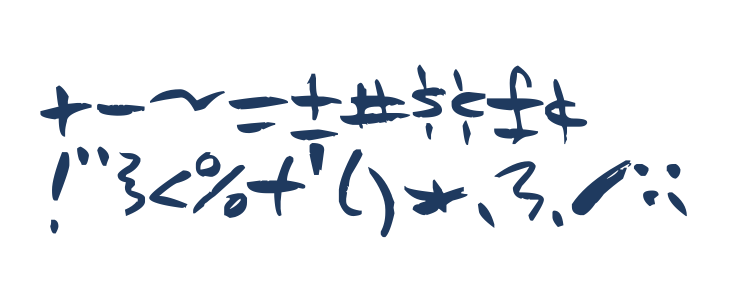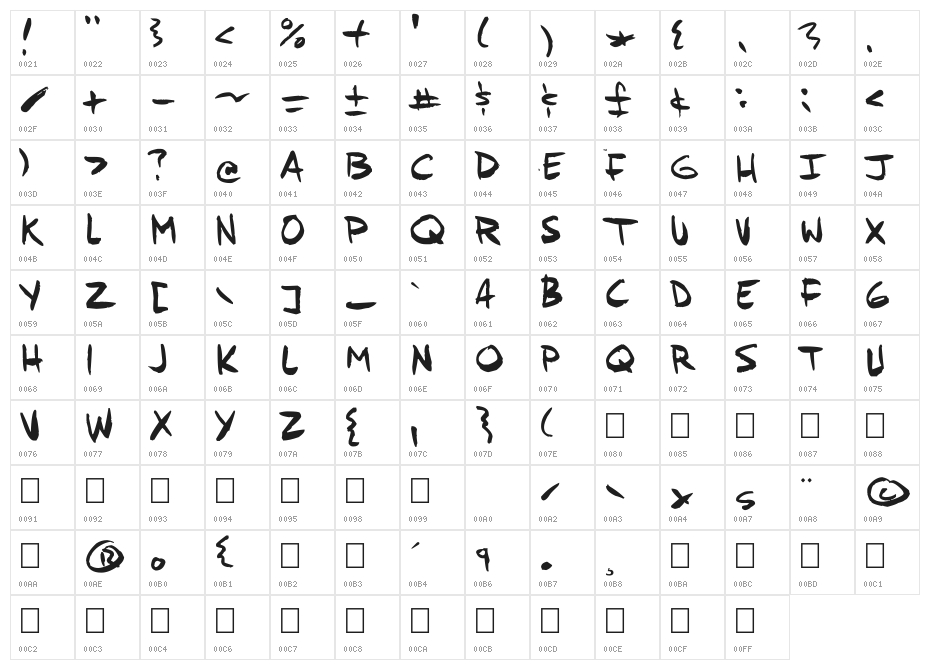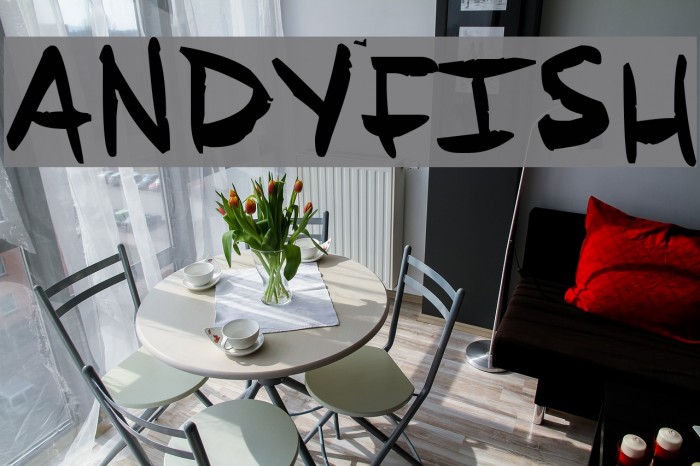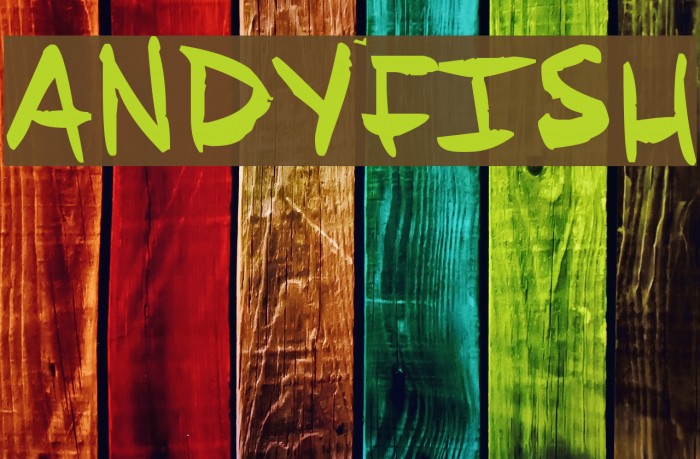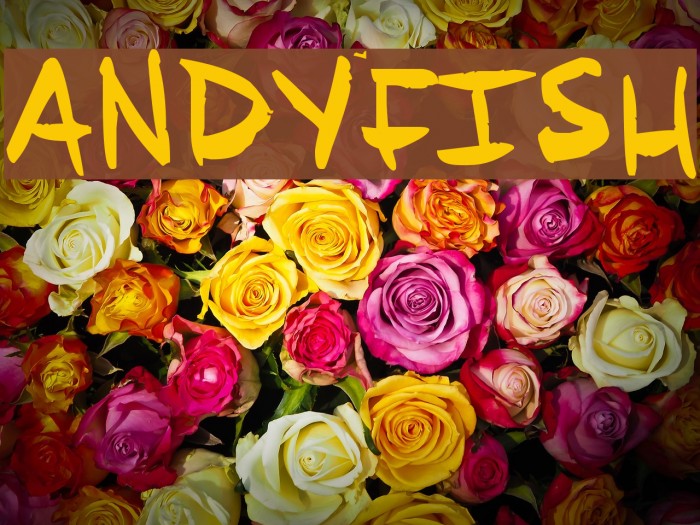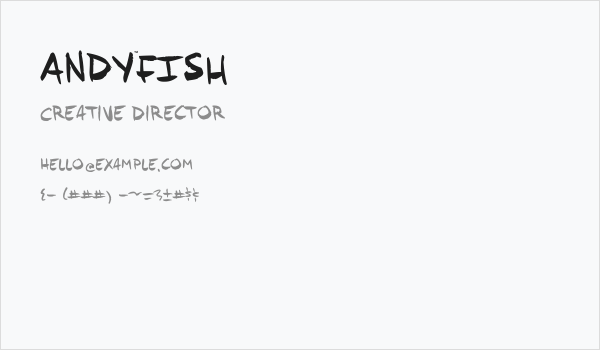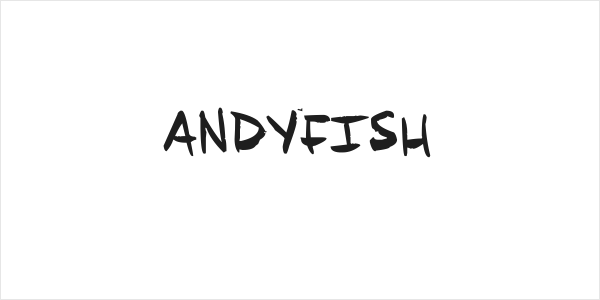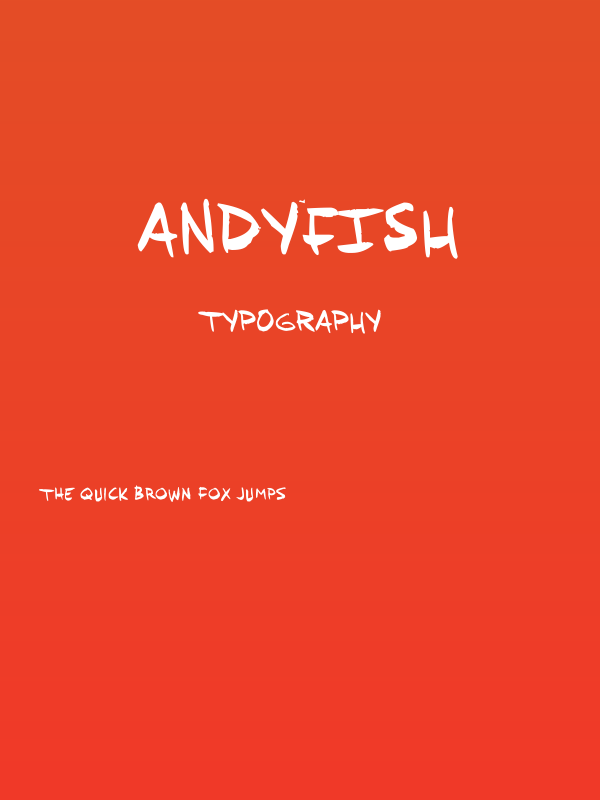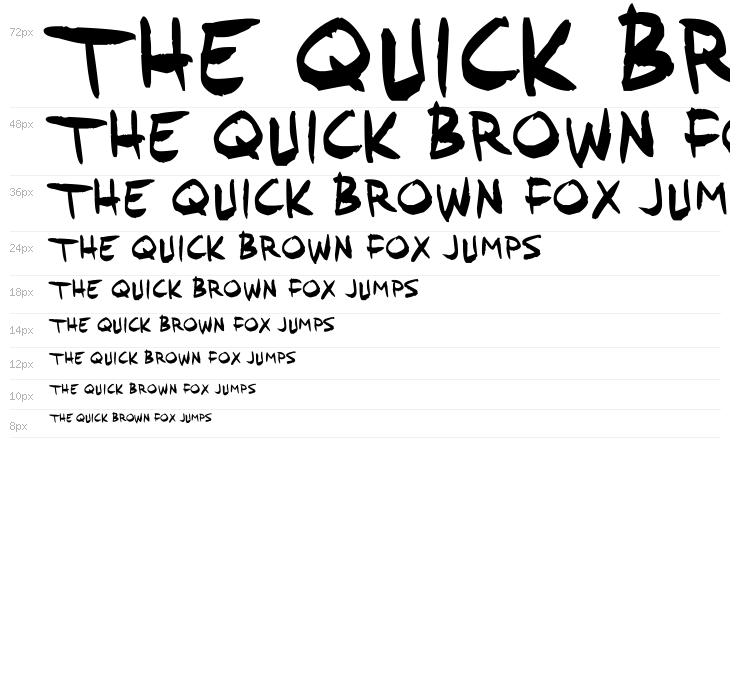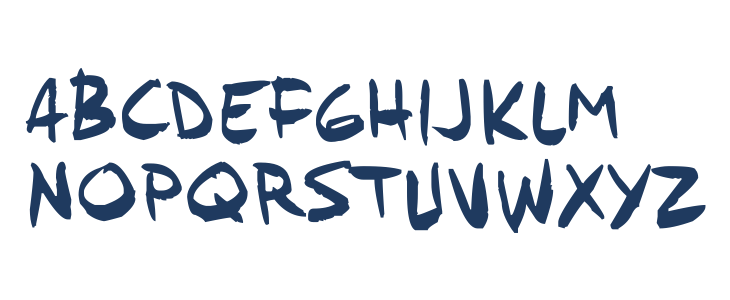
ANDYFISH Font
ANDYFISH Description
This font features a bold, hand-drawn style with a playful and energetic appearance. The characters are irregular and have a brush-like texture, giving them a dynamic and artistic feel. The uppercase and lowercase letters maintain a consistent style, with slightly exaggerated curves and angles that add to the font's unique personality. The numbers and special characters are equally expressive, ensuring a cohesive look across all text elements. This font is ideal for projects that require a creative and informal touch, such as posters, invitations, and branding materials.